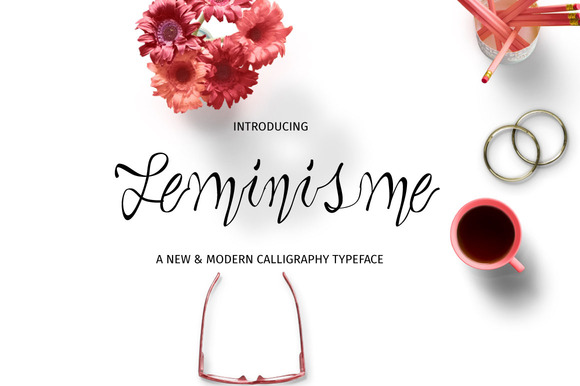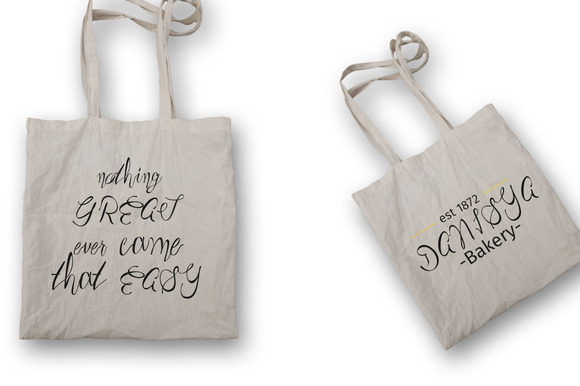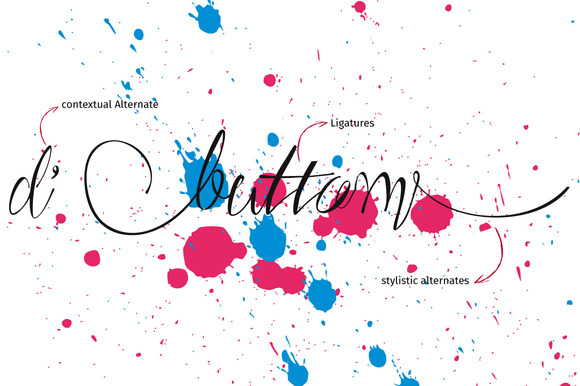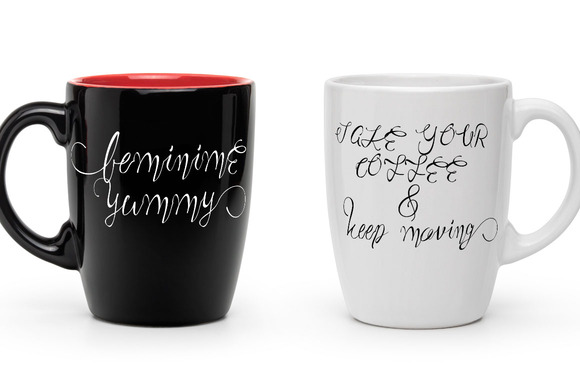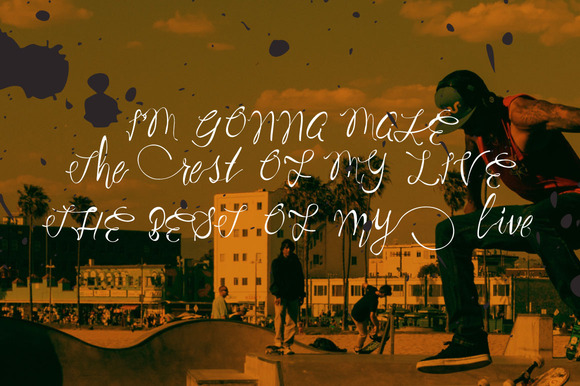
Feminisme Font
About Feminisme Font
‘Feminisme’ is a new & modern calligraphy typeface with an elegant touch. It can be used for various purposes such as headings, posters, t-shirts, logos, labels, book covers, and much more